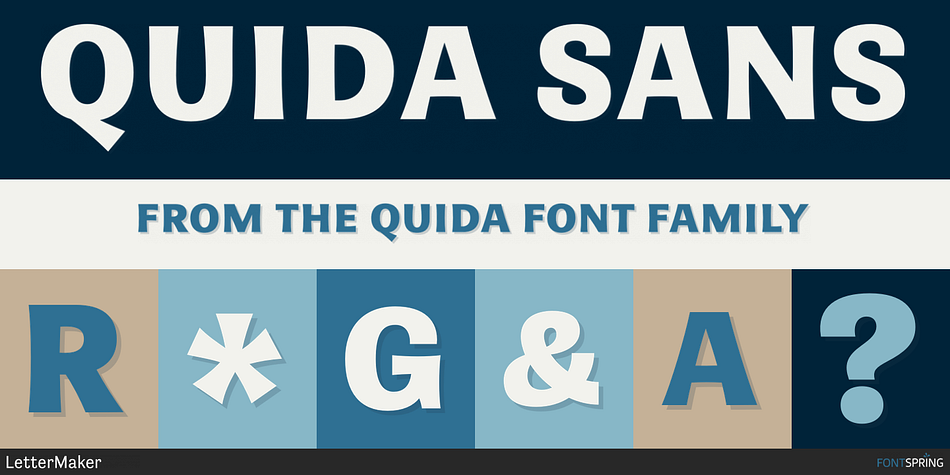
QUIDA SANS
Designed by Teo Tuominen, Quida is a brush script and display sans font family. This typeface has three styles and was published by LetterMaker.
Quida is a display family with three styles; Regular, Italic and script. The personality of the design comes from concave vertical shapes, which are consistent through all styles. This makes them work together seamlessly.
Quida Script is packed with opentype goodness such as swash caps, stylistic alternates, ligatures and ending forms for lowercase letters. All styles have an extended language support for most European languages.
The family is ideal for branding, packaging advertising and display uses.